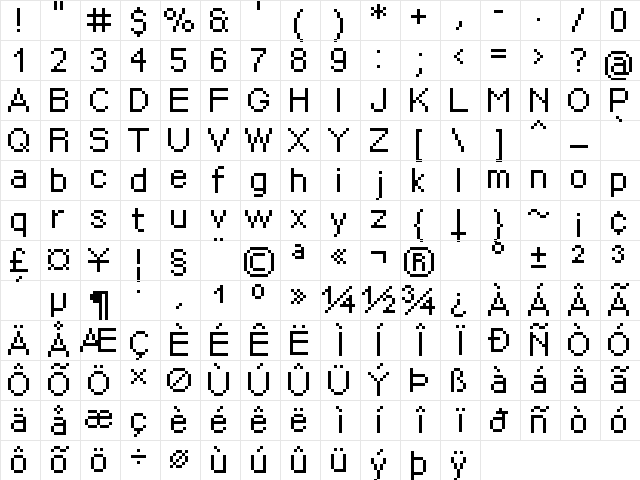
px sans nouveaux Regular
Foundry: Elvis Mehmedovic
Designer: Elvis Mehmedovic
Design Context for px sans nouveaux
px sans nouveaux is a composed and adaptable typeface that performs quietly and consistently across a wide range of design contexts.